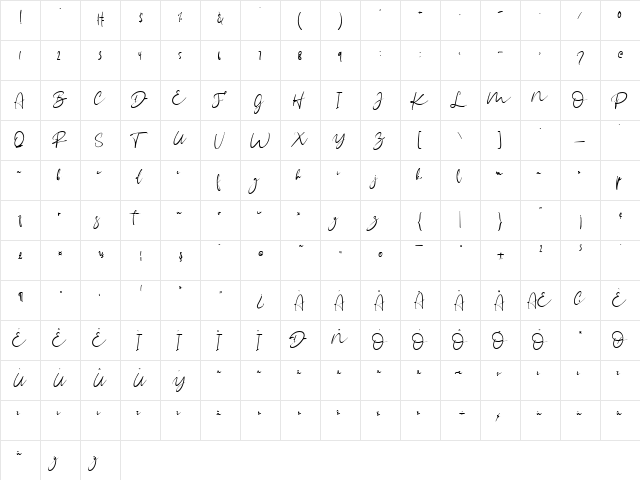
Katampi pisan Regular
Design Context for Katampi pisan Typeface
Katampi pisan is a composed and adaptable typeface that performs quietly and consistently across a wide range of design contexts.